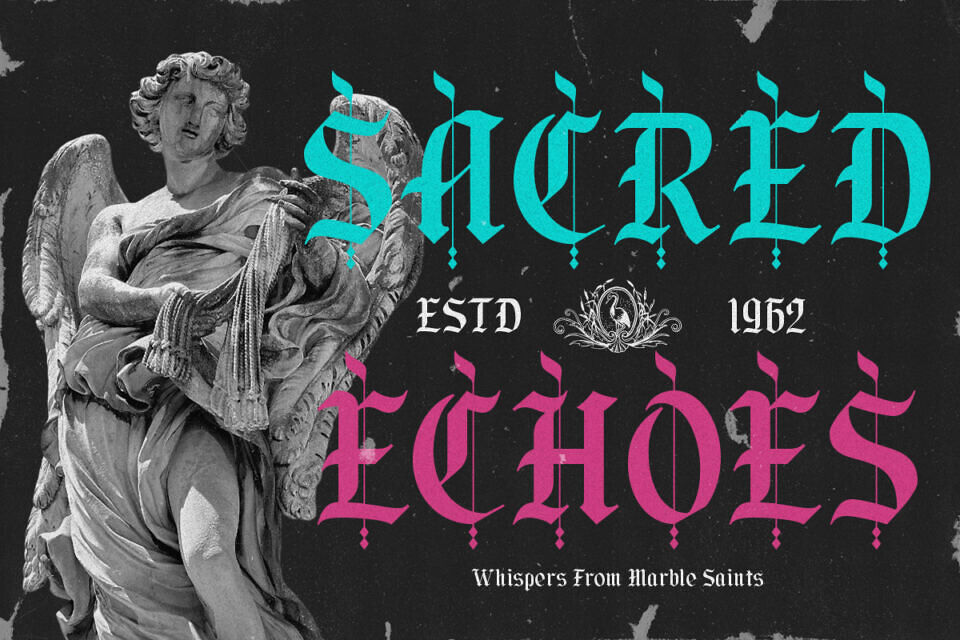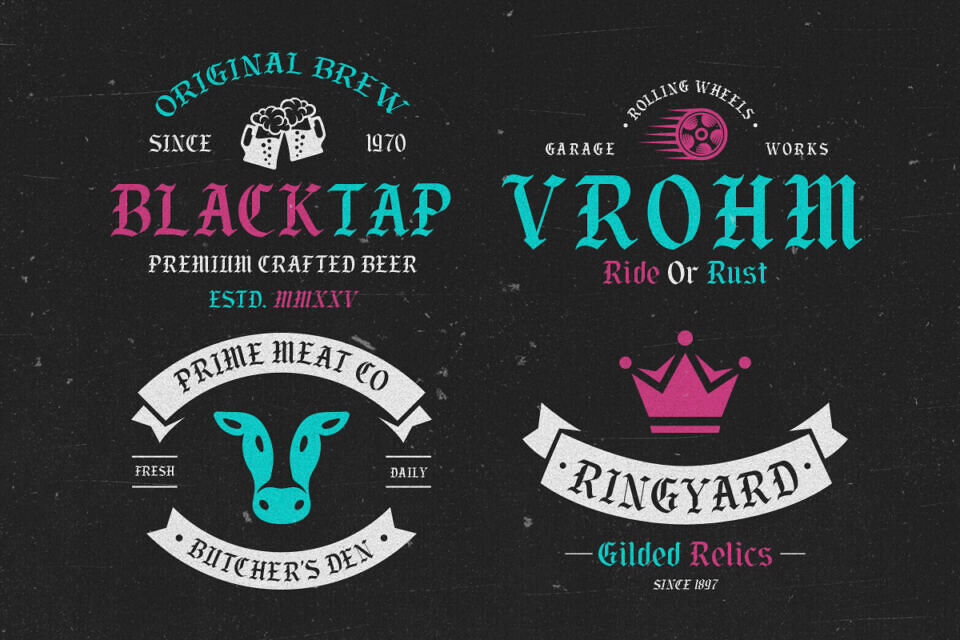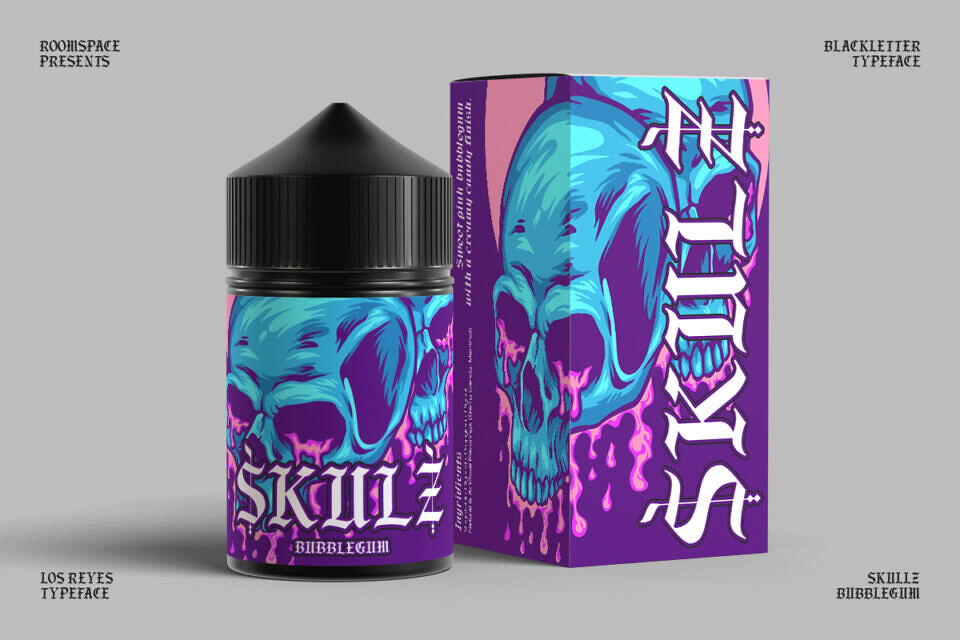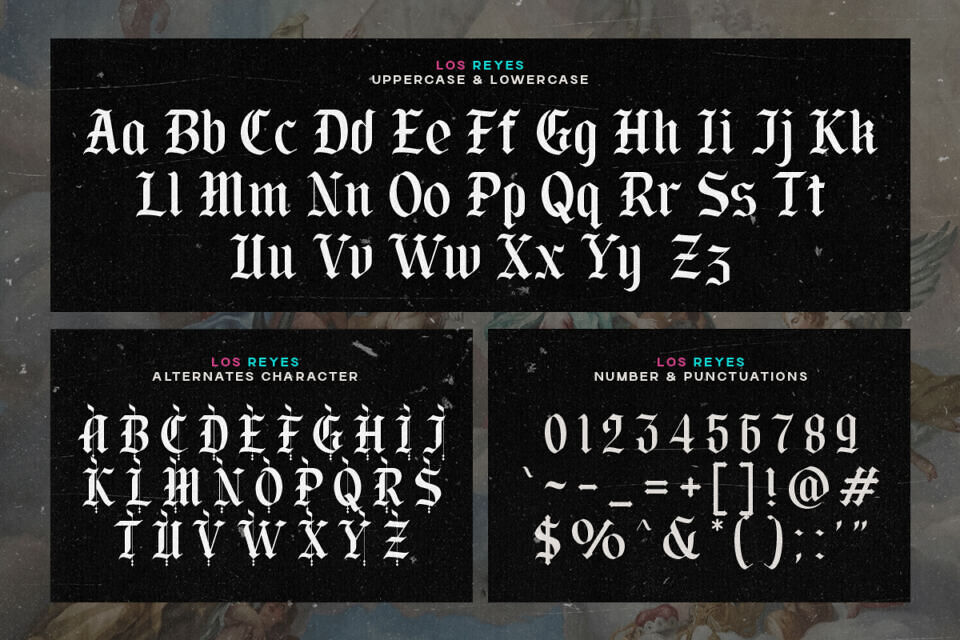
Los Reyes Font
A regal, sharp, and modernized blackletter font crafted for bold branding and dramatic storytelling. Los Reyes is a bold gothic blackletter typeface inspired by medieval artistry and modern editorial design.
With sharp serifs, dramatic curves, and rich contrast, this font elevates any layout with a sense of heritage and intensity. Perfect for fashion labels, tattoo studios, poster design, music artwork, and creative branding Los Reyes brings expressive gothic elegance into the modern world.